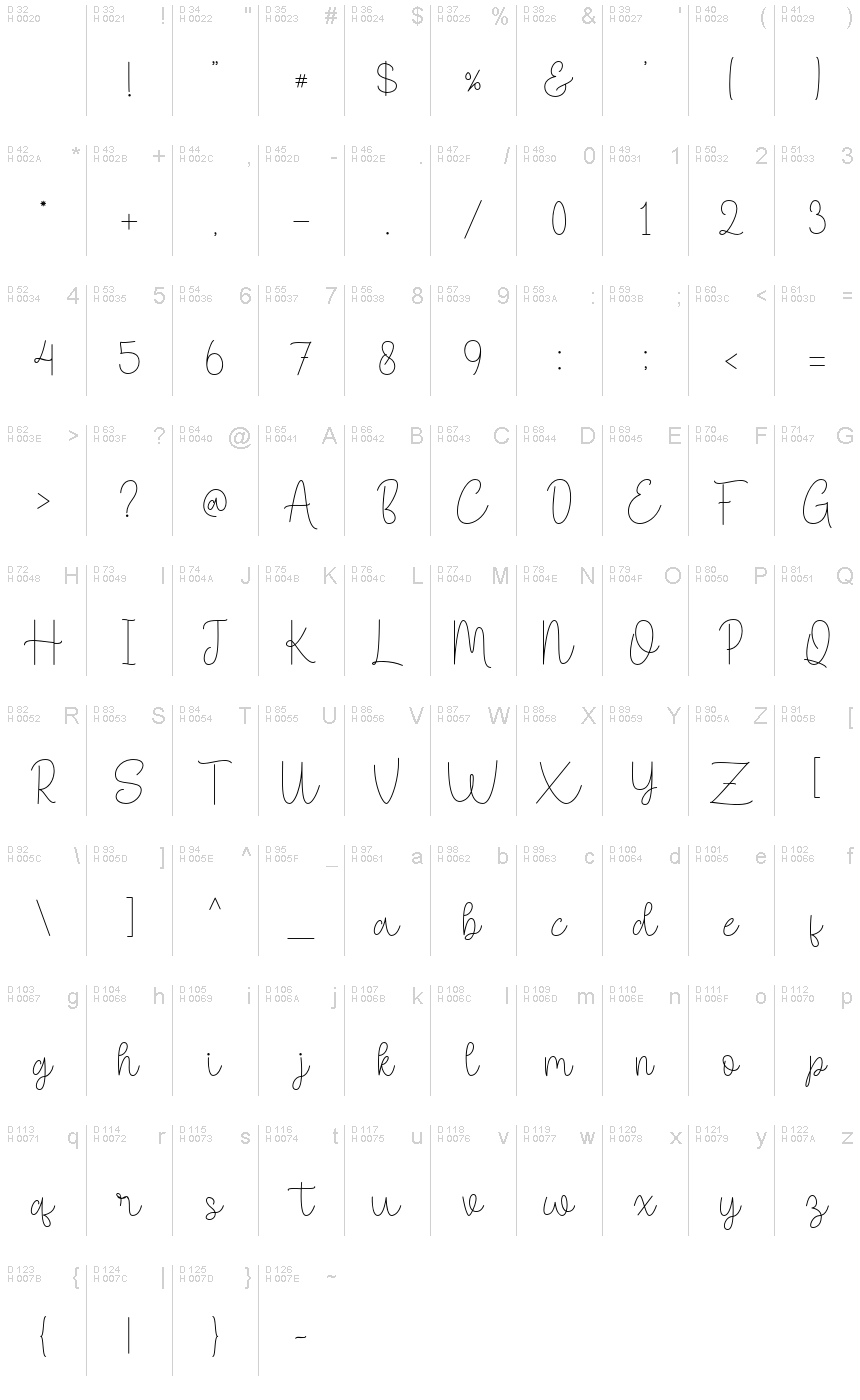
Autoscript
Autoscript, designed by JD Studio, captures the essence of a handwritten style with its charmingly fluid lines and light presence. This font exudes an inviting warmth that elegantly mimics the spontaneity of personal notes. Its graceful curves and playful loops create a sense of movement, making it visually appealing and distinctive.
Perfect for invitations, branding projects, or any design needing a personal touch, Autoscript brings a casual yet sophisticated vibe to text. Whether used for headlines or accentuating key messages in print or digital media, its unique character adds depth while remaining easily legible. Ideal for creatives looking to infuse their work with authenticity and style, Autoscript stands out as a versatile choice in today’s design landscape.